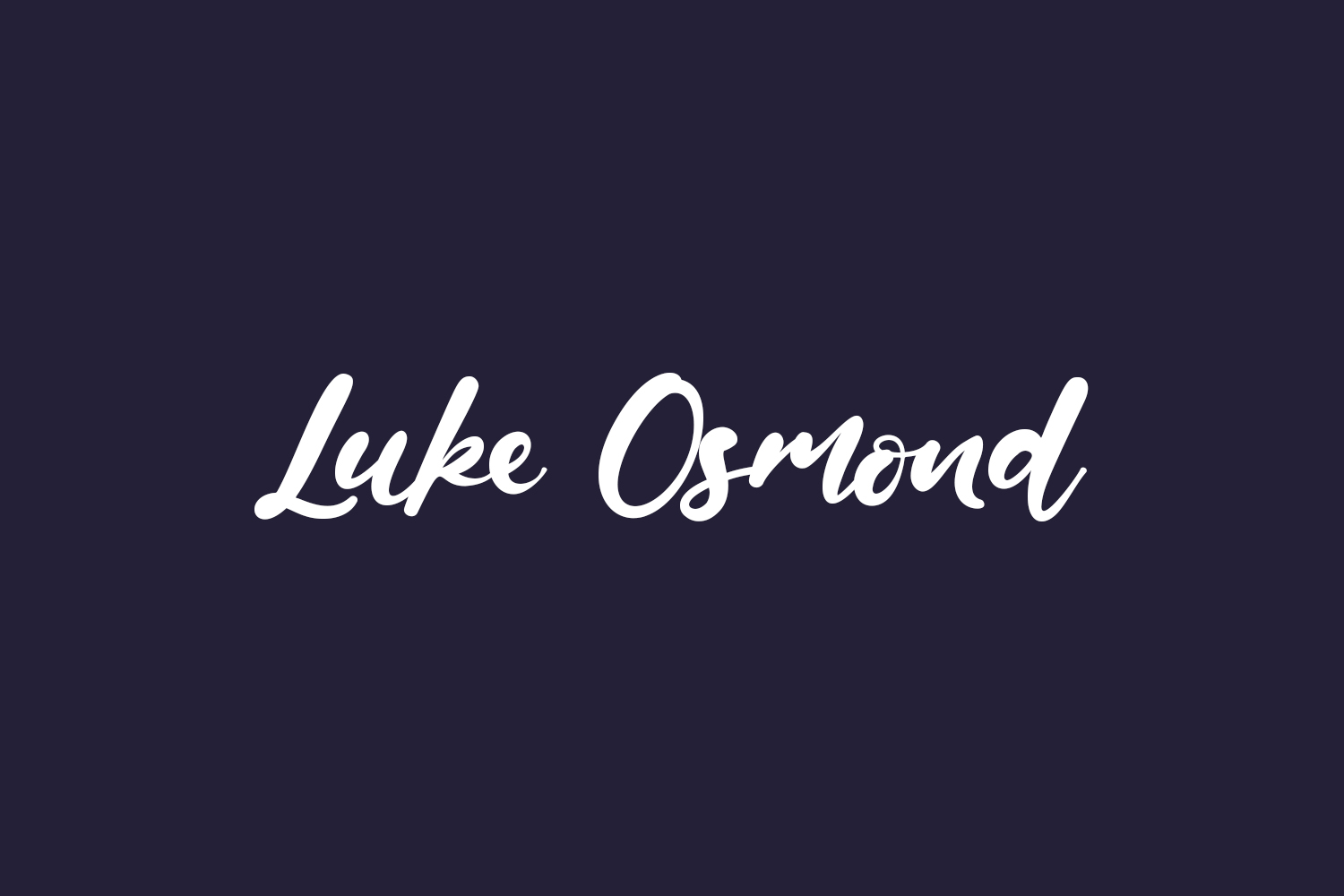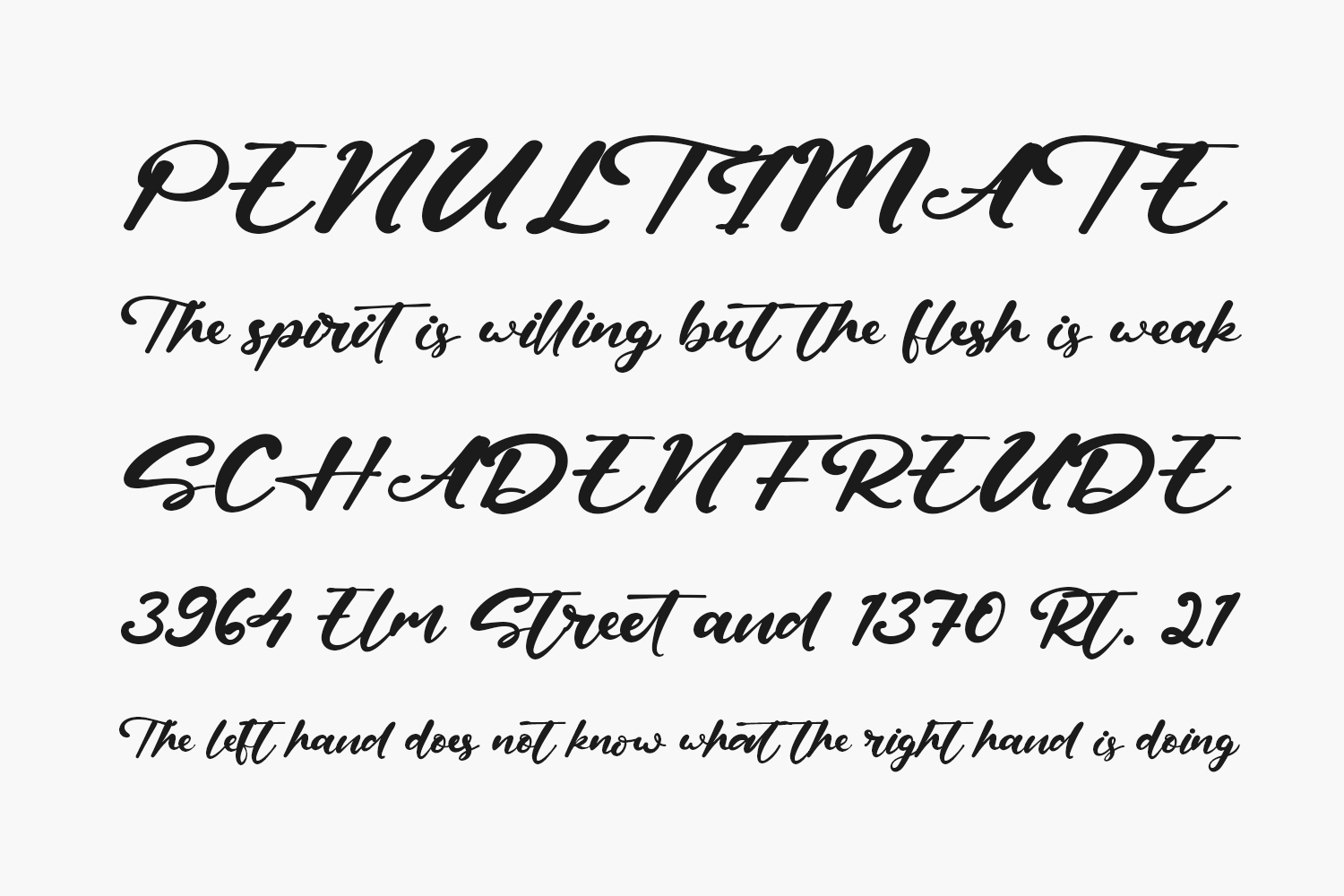
Luke Osmond Free Font is a modern and playful handwritten script font. It’s great for crafters and designers. Luke Osmond Free Font was designed by Kong Font and is free for personal use only. Please purchase the full version for commercial use.